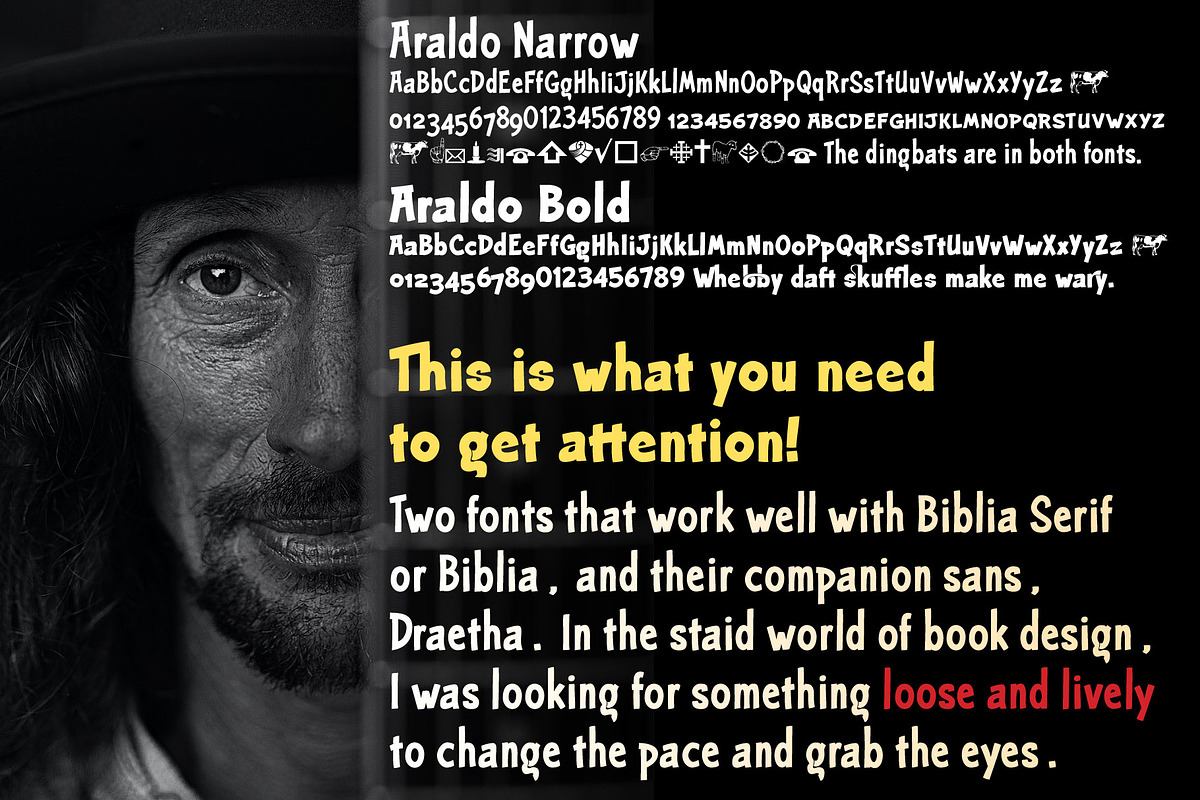
Araldo-two loose free headline fonts Free Download
Araldo-Two Loose Free Headline Fonts Free Download
Please note, to use this font for commercial purposes, you must purchase the full version. Araldo-Two Loose is a bold and eye-catching headline font designed to grab attention. With its loose, relaxed letterforms, this font offers a unique and modern feel, making it perfect for posters, advertisements, logos, and other high-impact designs. Whether you're working on an edgy brand identity or a creative marketing campaign, Araldo-Two Loose brings a stylish, effortless touch to your work. Test it out and enjoy free download access for personal use. Experience the bold character of Araldo-Two Loose Free Headline Fonts Free Download before purchasing the commercial license. Make a strong statement with your designs using this unique font.